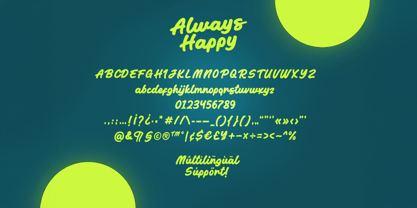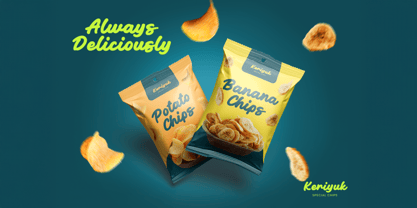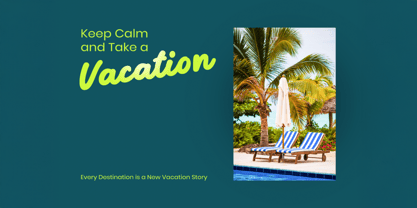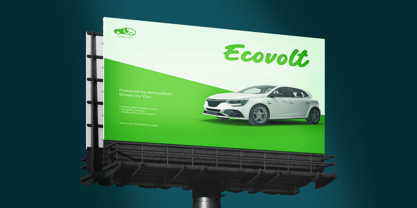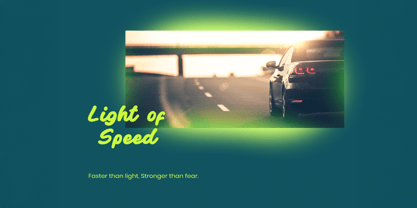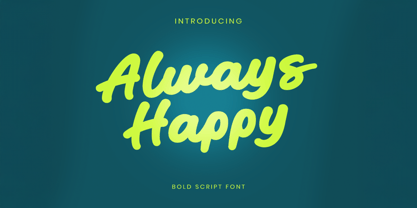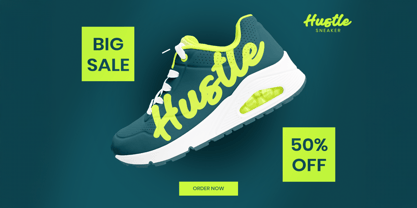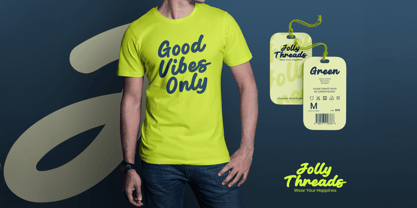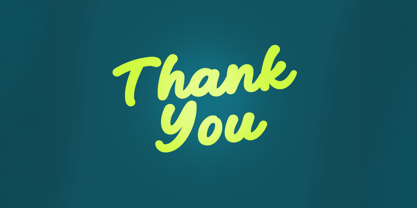
Always Happy
by alphArt
The Always Happy Font Family was designed by Agung Rohmat and published by alphArt. Always Happy contains 1 styles.
Always Happy is a bold script font that brings a cheerful, dynamic, and expressive feel to every design. With strong yet flexible bold strokes, this font is perfect for branding, logos, packaging, social media, and other creative designs.
Key Features:
✔ Bold script font with a thick, playful, and energetic look.
✔ Suitable for posters, merchandise, T-shirts, and social media branding.
Make your design more alive with a touch of Always Happy!